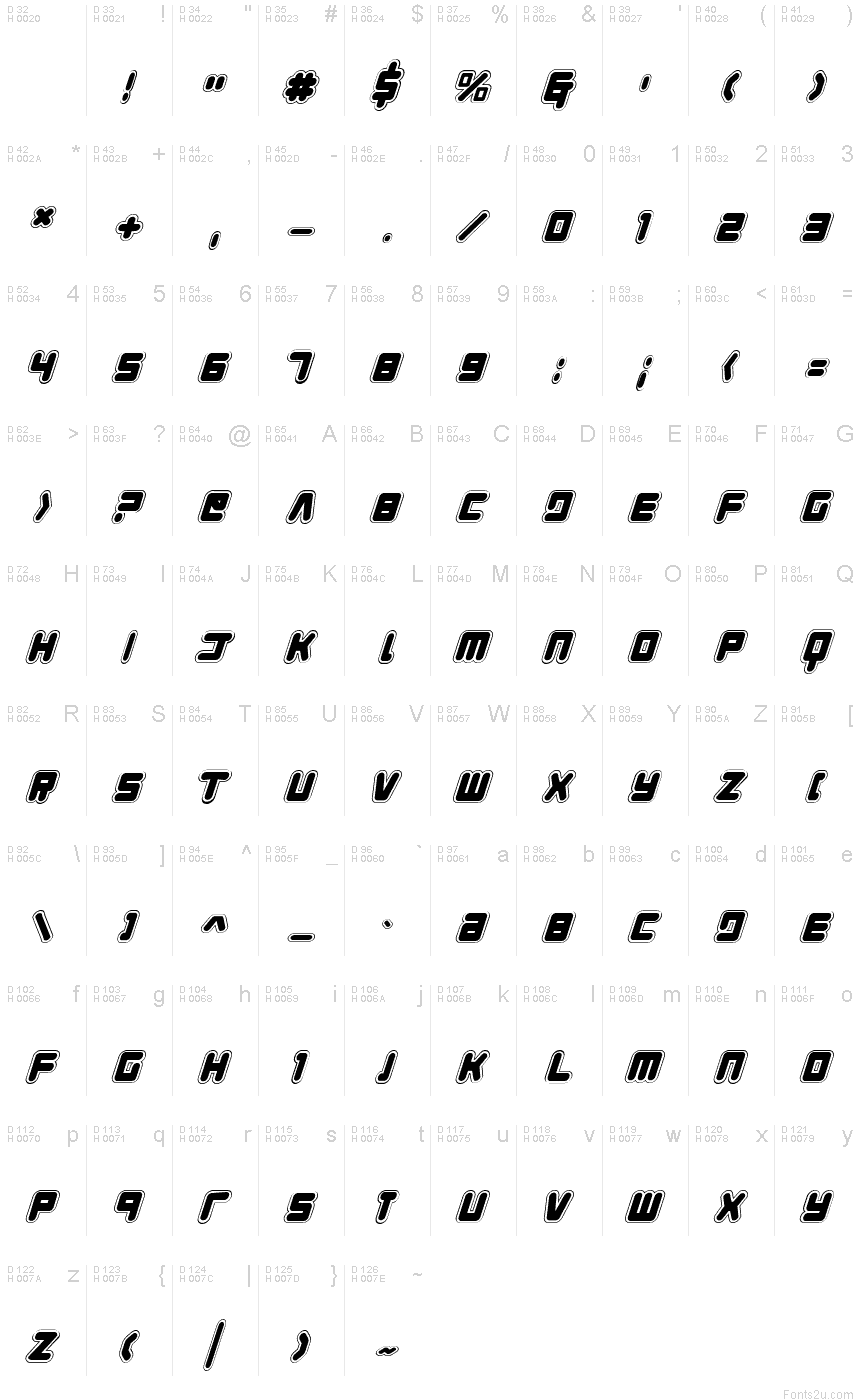
Young Techs Academy Italic by Daniel Zadorozny of Iconian Fonts is a free outlined techno display font with a low, forward-driving stance. Broad letters combine rounded corners with thick strokes and layered contours. Inset lines turn the forms into machined emblems.
Gaming and youth sports audiences will recognize its arcade styling. It fits esports branding, team merchandise, and racing posters, where the slant suggests motion. Brand marks are its strongest use, since the nested outlines resemble custom insignia.
Young Techs Academy Italic